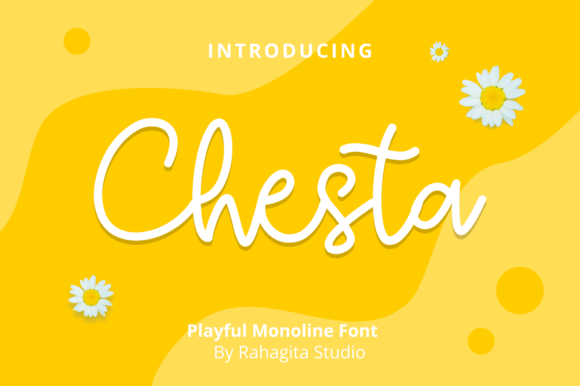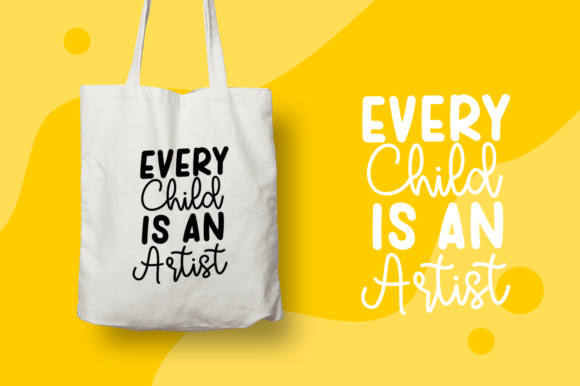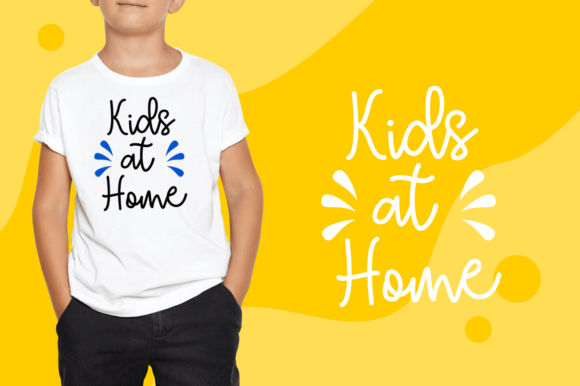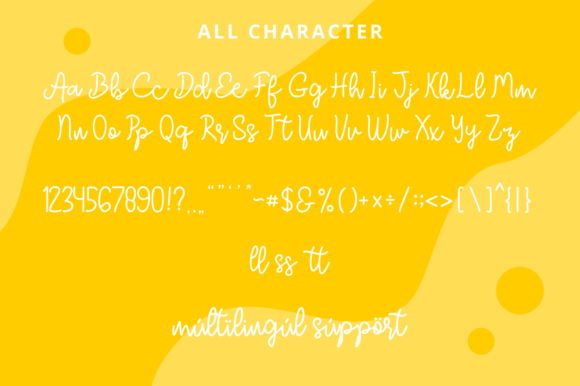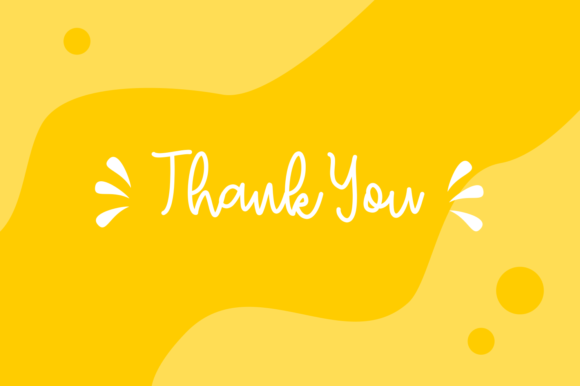
Chesta Font
About Chesta Font
Chesta feels simple, magical and timeless. Fall in love with its incredibly versatile style and use it to create gorgeous wedding invitations, beautiful stationary art, eye-catching social media posts, and much more!